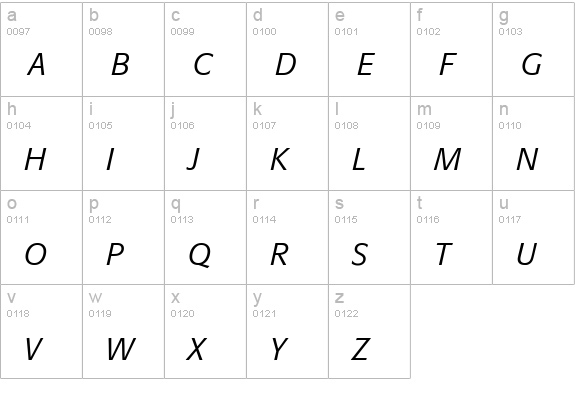
Formata Light Italic Small Caps & Oldstyle Figures is a refined, elegant, italic variant in the Formata typeface family \xE2\x80\x94 well suited to elegant body text, refined sub-headings, and luxury branding.
Introducing Formata Light Italic Small Caps & Oldstyle Figures font - a versatile and elegant typeface perfect for adding a touch of sophistication to your designs. The light italic style exudes a modern and sleek aesthetic, while the small caps and oldstyle figures bring a classic and timeless vibe to your text. This font is ideal for a wide range of design projects, from elegant invitations to professional presentations. Its delicate and refined appearance makes it a great choice for conveying a sense of elegance and style. Best of all, this font is free to download at FontsMarket.com, making it easily accessible for all your design needs. Don't miss out on this beautiful and versatile typeface that will elevate your projects to the next level. Download Formata Light Italic Small Caps & Oldstyle Figures font today and add a touch of sophistication to your designs.